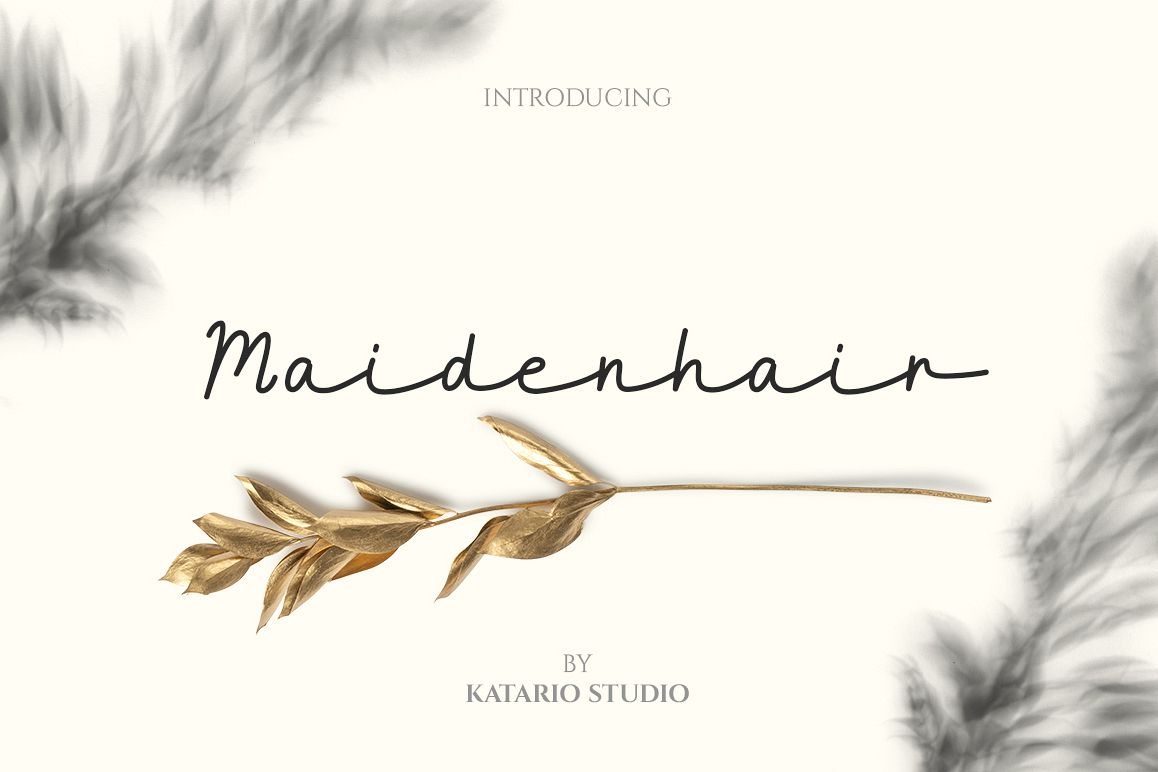
Maidenhair
'Maidenhair' is a monoline script with a natural & stylish flow. This  script is perfect for any project you have especially for branding, wedding, blog, logotypes.